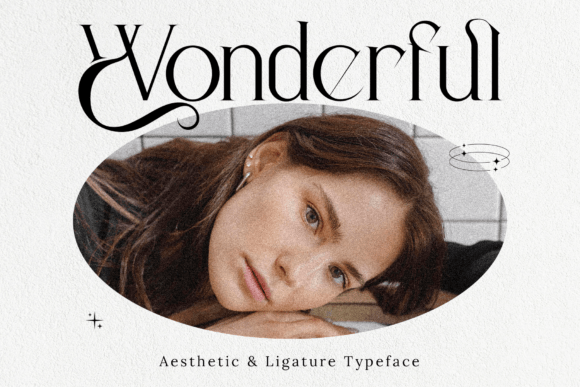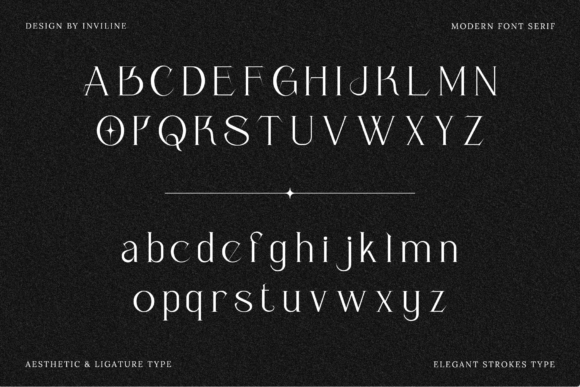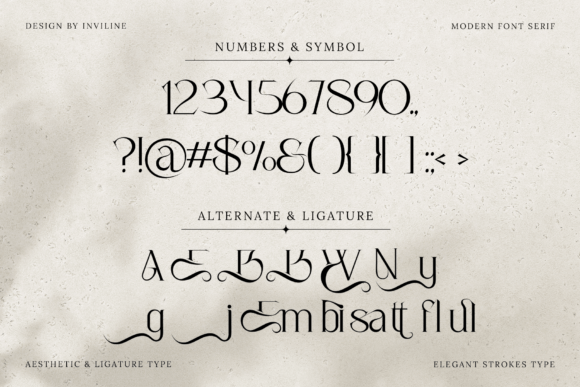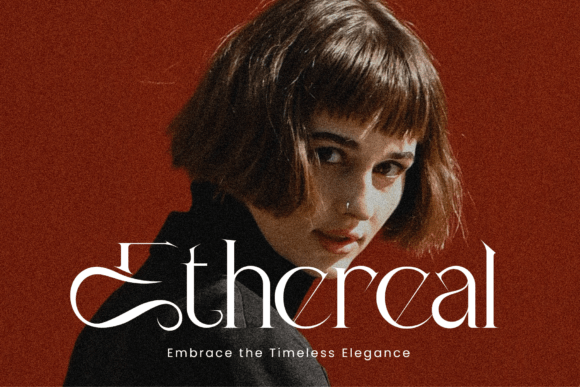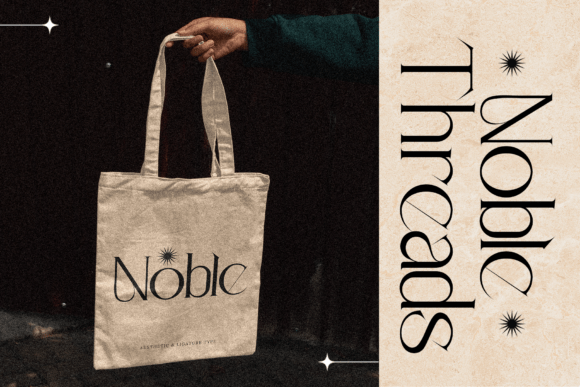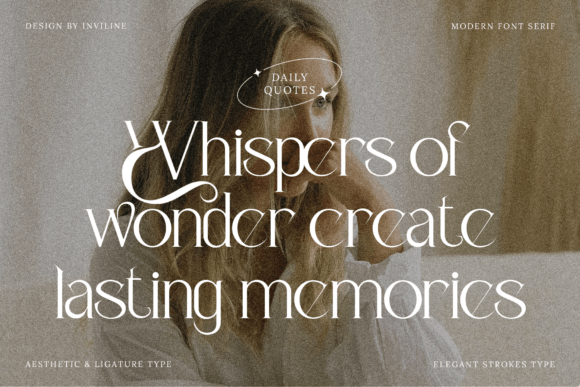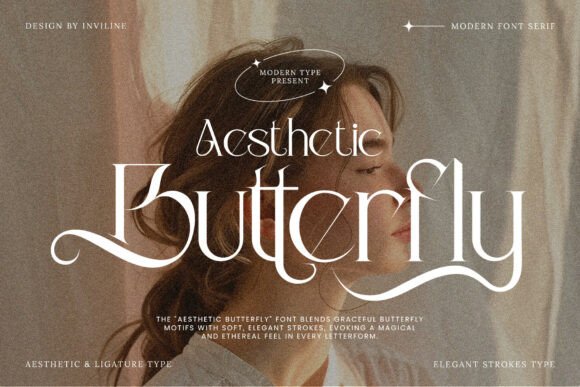
Introducing Aesthetic Butterfly: A Delicate Serif Typeface for Elegant Designs
Are you looking for a font that can add a touch of magic and elegance to your designs? Look no further than Aesthetic Butterfly, a delicate serif typeface inspired by the beauty of butterfly wings. This stunning font is perfect for designers and crafters who want to create romantic, sophisticated, and dreamlike designs that capture the essence of elegance and refinement.
The Inspiration Behind Aesthetic Butterfly
Aesthetic Butterfly is a font that draws inspiration from the intricate details and delicate curves of butterfly wings. The font’s creator aimed to capture the essence of these beautiful creatures and translate it into a typeface that exudes elegance, sophistication, and a touch of whimsy. The result is a font that is both refined and enchanting, perfect for designs that require a touch of luxury and refinement.
Key Features of Aesthetic Butterfly
Aesthetic Butterfly is a font that boasts several key features that make it perfect for a wide range of design applications. Some of its notable features include:
- Soft Curves: Aesthetic Butterfly features soft, flowing curves that give it a delicate and refined appearance. These curves add a touch of elegance to any design, making it perfect for projects that require a sophisticated look.
- Graceful Ligatures: The font includes a range of ligatures that add a touch of whimsy and elegance to any design. These ligatures can be used to create beautiful, flowing text that is a joy to read.
- Flowing Strokes: Aesthetic Butterfly features flowing strokes that give it a sense of movement and energy. These strokes add a touch of dynamism to any design, making it perfect for projects that require a sense of elegance and refinement.
Aesthetic Butterfly is a versatile font that can be used for a wide range of design applications. Some of the most popular uses for this font include:
- Wedding Invitations: Aesthetic Butterfly is perfect for wedding invitations, adding a touch of romance and elegance to any design.
- Romantic Branding: The font’s elegant and refined appearance makes it perfect for romantic branding, including logos, packaging, and marketing materials.
- Feminine Packaging: Aesthetic Butterfly is a great choice for feminine packaging, adding a touch of elegance and sophistication to any product.
- Social Media Graphics: The font’s delicate curves and flowing strokes make it perfect for social media graphics, including Instagram posts, Facebook graphics, and more.
- Editorial Layouts: Aesthetic Butterfly can be used to create beautiful editorial layouts, including magazine articles, blog posts, and more.
Aesthetic Butterfly is a stunning font that is perfect for designers and crafters who want to create elegant, sophisticated, and dreamlike designs. With its soft curves, graceful ligatures, and flowing strokes, this font is sure to add a touch of magic to any project. Whether you’re creating wedding invitations, romantic branding, feminine packaging, social media graphics, or editorial layouts, Aesthetic Butterfly is the perfect choice.